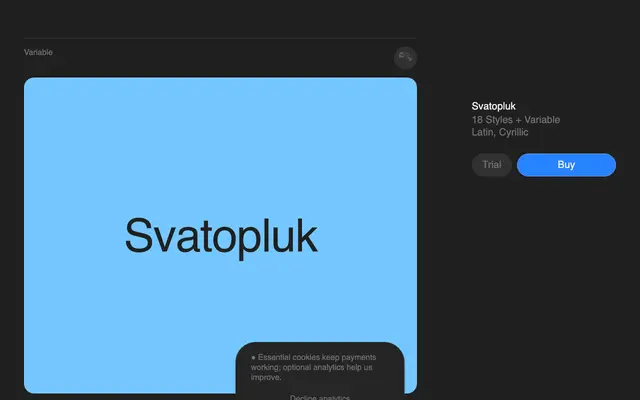
Svatopluk
Superior Type · Vojtěch Říha
A geometric sans with humanist personality details, available in 18 static styles and a variable font covering Latin and Cyrillic scripts.
Designed by Vojtěch Říha, Svatopluk draws on the designer's childhood fascination with trains, planes and complex systems built from simple parts. Distinctive letterforms including a looped lowercase 'a', a turned tail on the 'g' and an expressive dot introduce character without compromising legibility. The family spans nine weights from Thin to Black, each with a matching italic, supported by a variable font and a broad language coverage of 351 languages across Latin and Cyrillic scripts.
A clean, upright sans with geometric proportions and humanist personality details such as a looped lowercase 'a' and expressive dot, placing it firmly in the geometric sans tradition with humanist inflections.